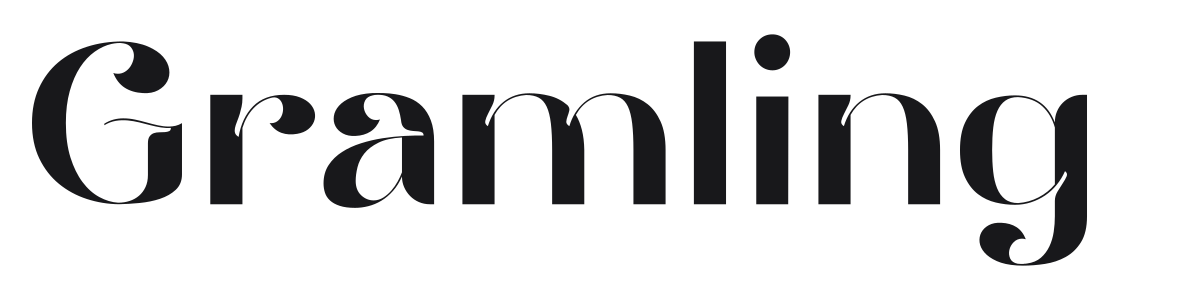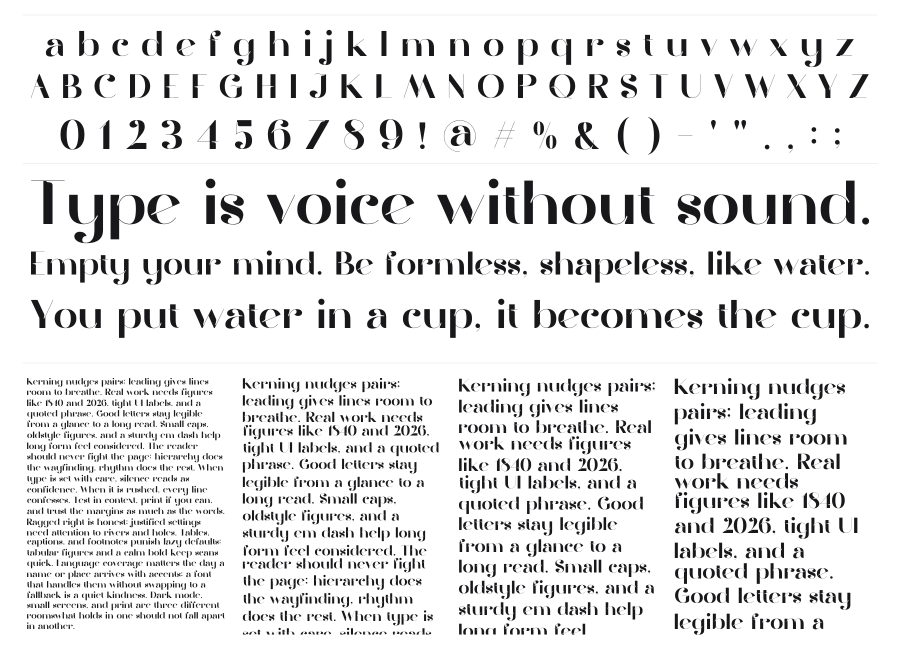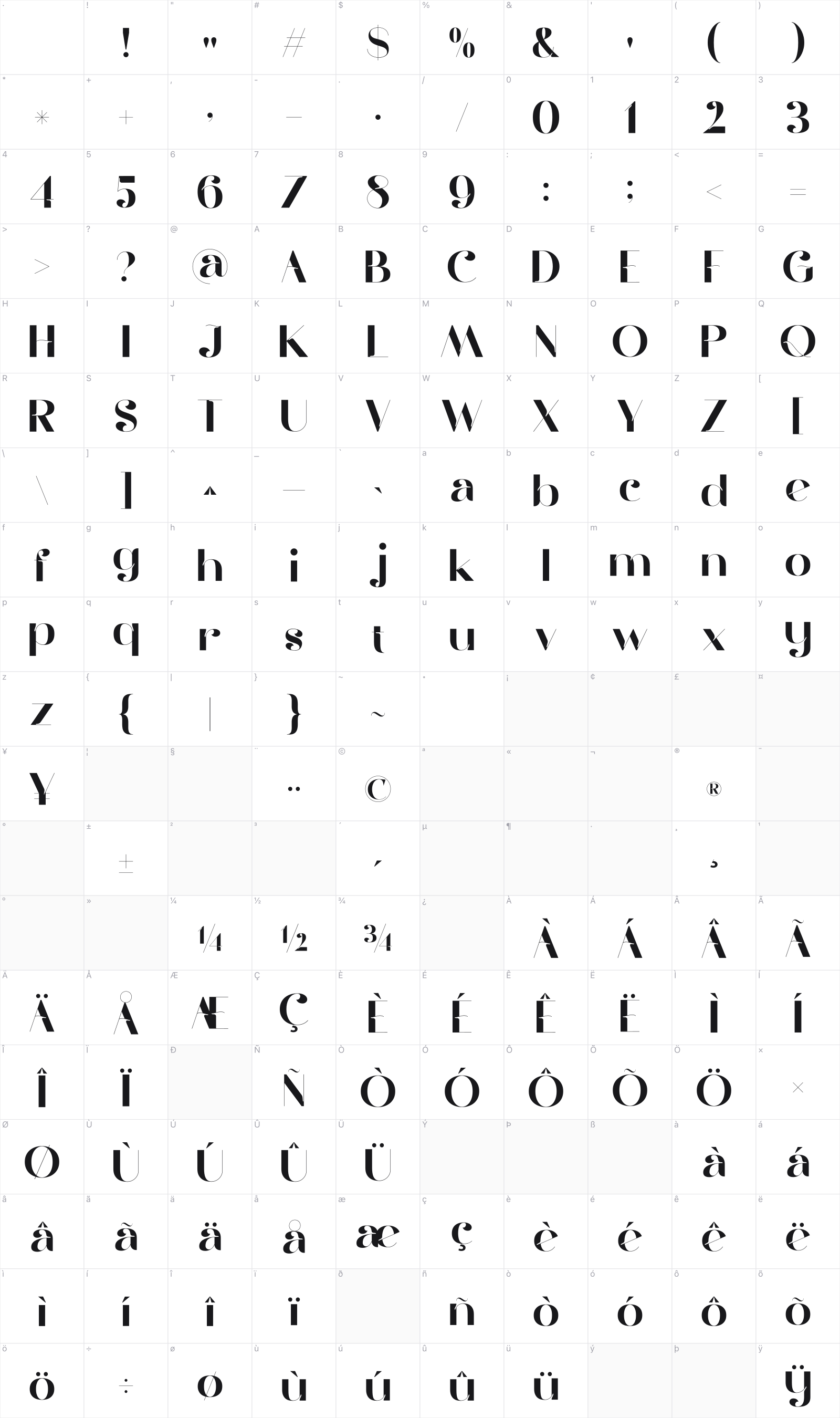
Gramling
Gramling is a high-contrast modern serif with the dramatic thick-thin tension of the Didone tradition. Wide, open proportions and near-hairline strokes give it a distinctly chic, editorial quality. It works best at large sizes where that extreme stroke contrast can be fully appreciated.